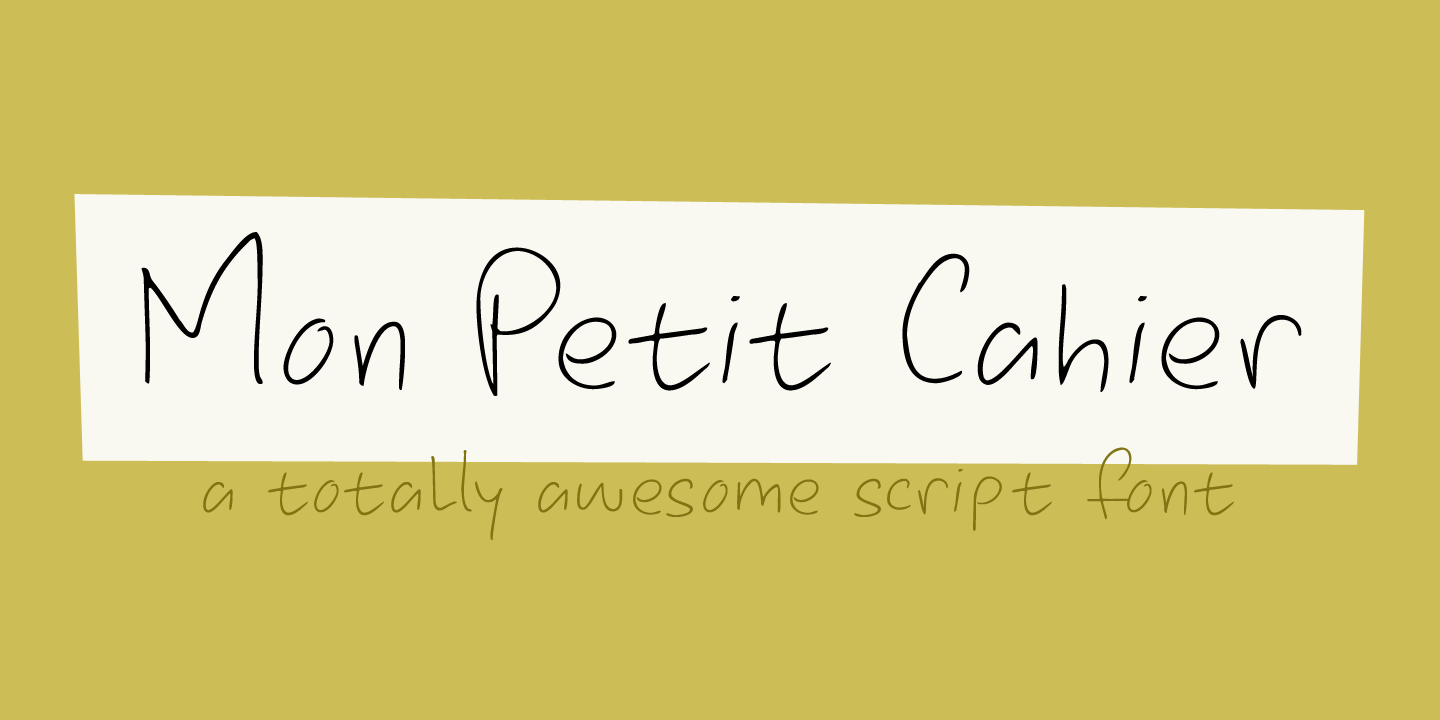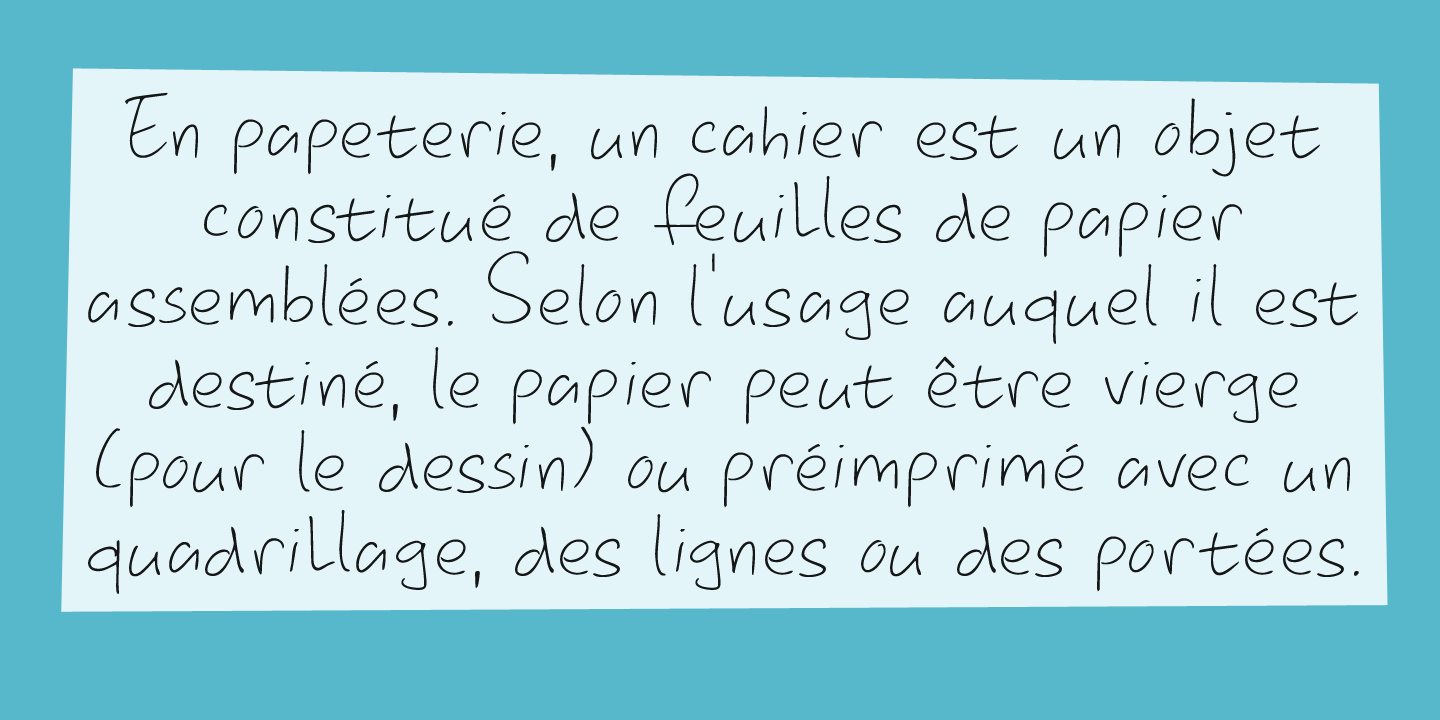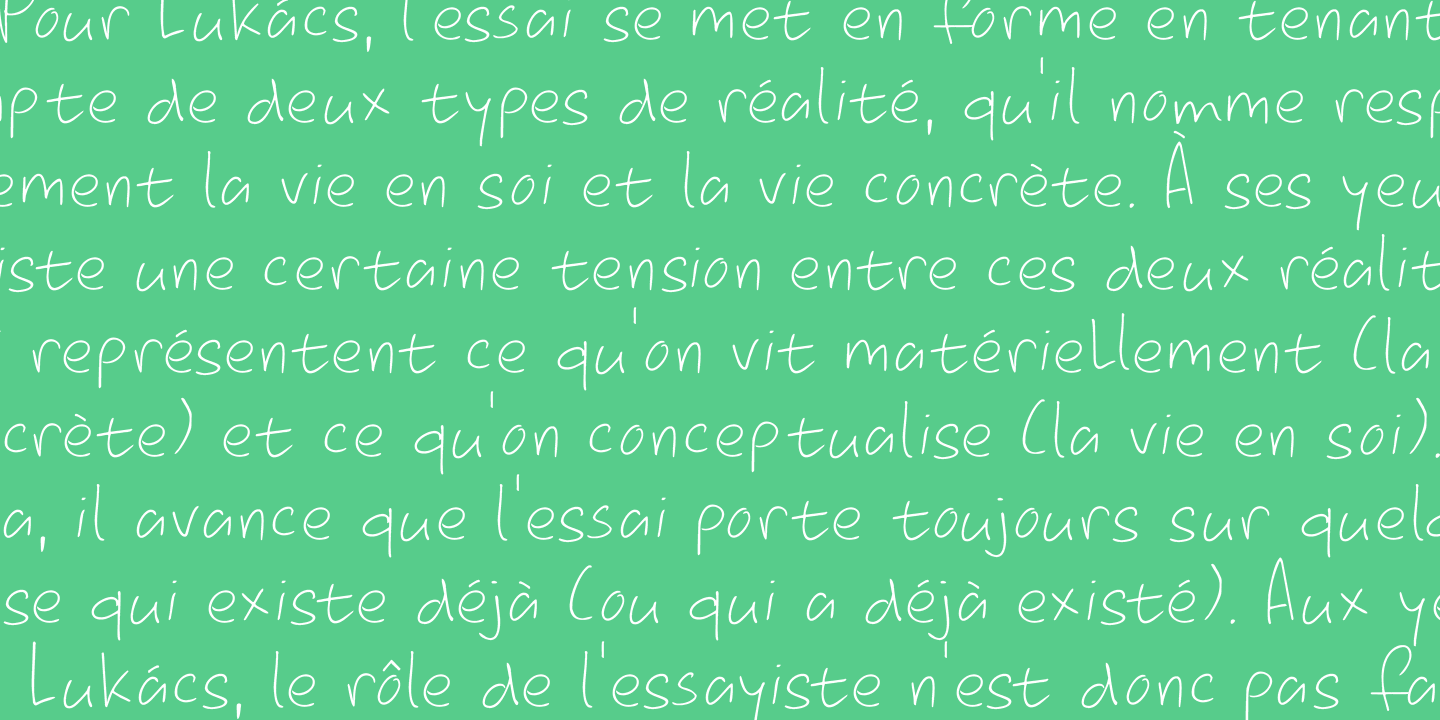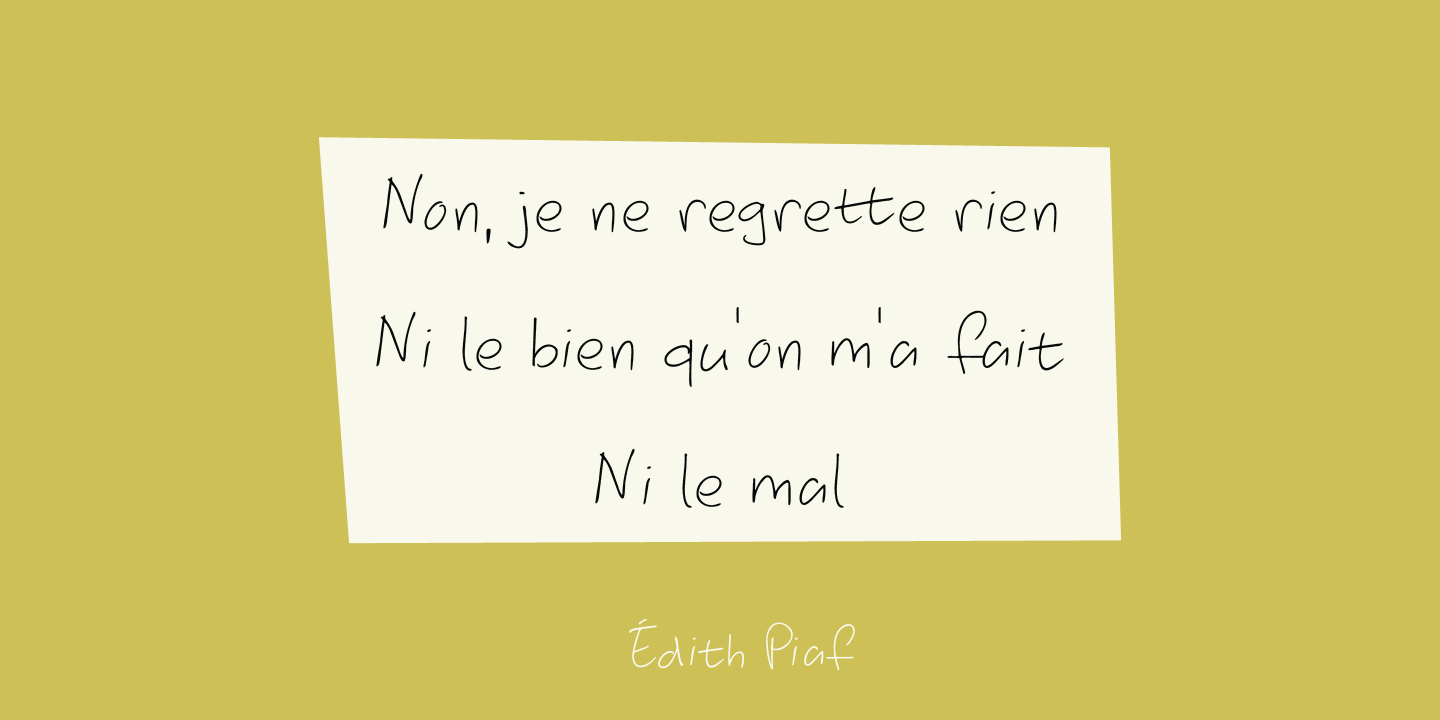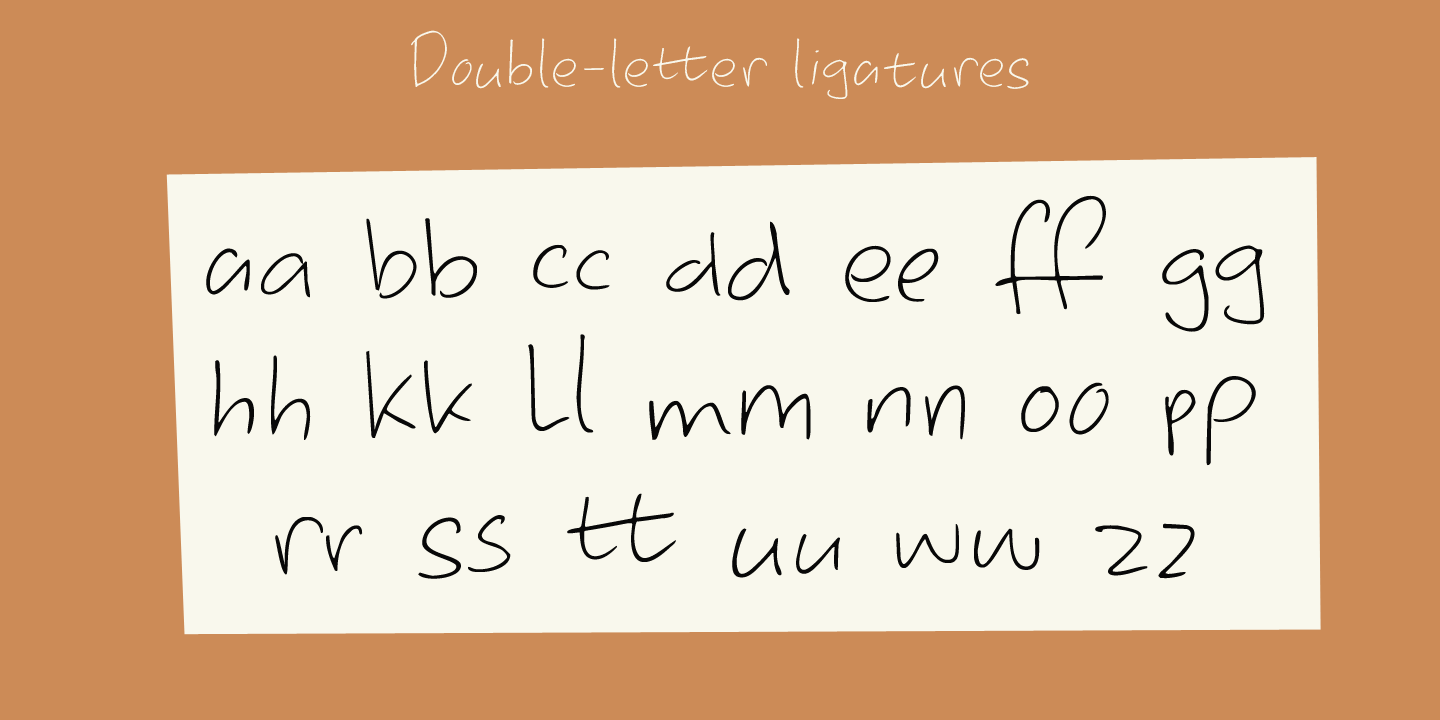
Mon Petit Cahier
My family and I are stuck in quarantine for a week; my eldest son tested positive for Covid19 (but everyone else tested negative), so we can't go out. That means that the kids follow classes online.
I noticed their notebooks and suddenly realized that a notebook used to be called a ?cahier?, which is a French word meaning the exact same thing. I guess it sounded sophisticated at the time.
Mon Petit Cahier (meaning: My Little Notebook) is a handmade script font. It is not meant to be awe-inspiring, nor do you want to use it for headlines or posters. It is a nice little font that feels at home wherever an unobtrusive script is needed.
Comes with all the diacritics you want and a set of cool double letter ligatures.